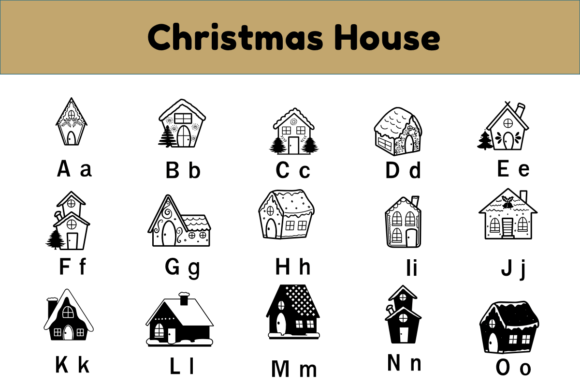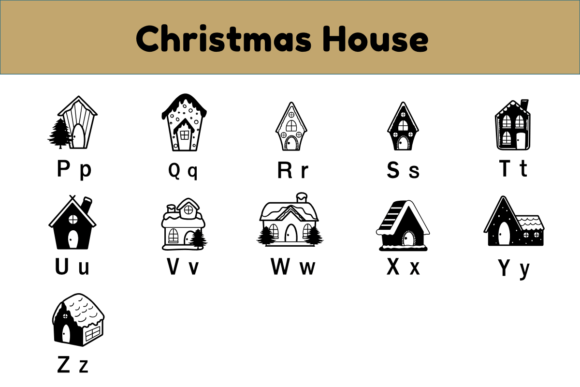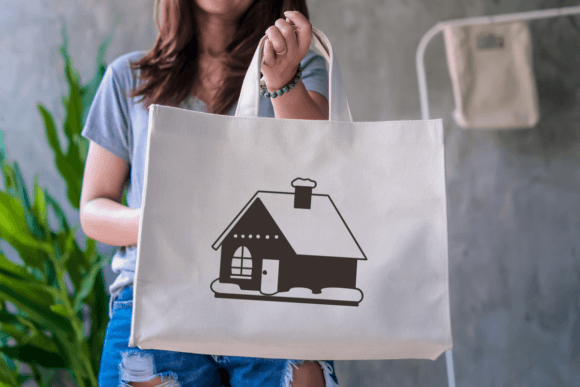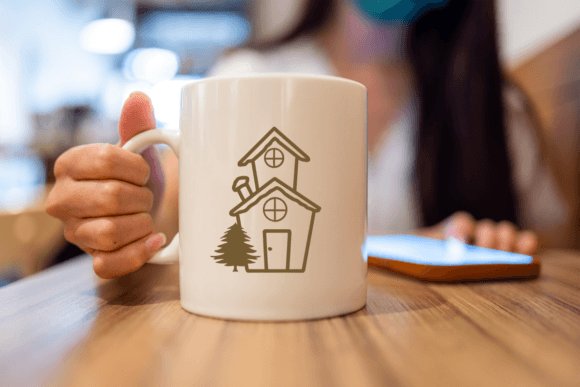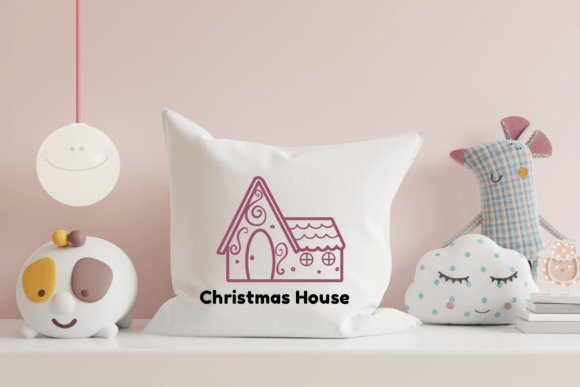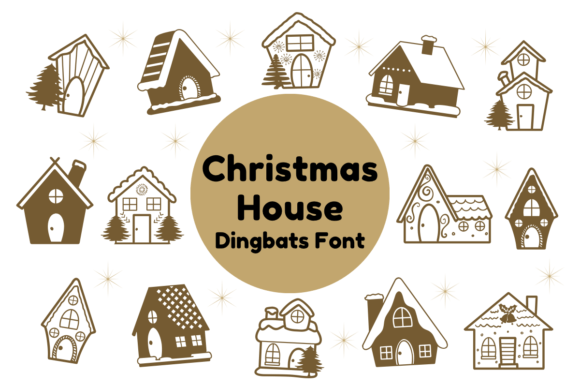
Introducing Christmas House Font: A Cute Dingbat Font for Your Holiday Projects
Are you looking for a font that captures the essence of Christmas and adds a touch of whimsy to your creative projects? Look no further than Christmas House Font, a delightful dingbat font that’s perfect for designers, crafters, and anyone looking to add some holiday cheer to their work.
What is Christmas House Font?
Christmas House Font is a unique and charming dingbat font that features a lovely Christmas theme. The font is designed to resemble a festive holiday house, complete with twinkling lights, wreaths, and other seasonal decorations. With its cute and playful design, Christmas House Font is sure to bring a smile to anyone’s face.
What Can I Use Christmas House Font For?
Christmas House Font is incredibly versatile and can be used for a wide range of creative projects. Here are just a few ideas to get you started:
- Wedding Invitations: Add a touch of holiday magic to your wedding invitations with Christmas House Font. You can use it to create custom monograms, decorations, and other design elements that will make your invitations stand out.
- DIY and Crafts: Christmas House Font is perfect for DIY projects and crafts, such as making holiday cards, gift tags, and decorations. You can use it to add a personal touch to your creations and make them more special.
- Decorations: Use Christmas House Font to create custom decorations for your home or office. You can make signs, banners, and other decorative items that will add a festive touch to your space.
- Logos and Branding: Christmas House Font can also be used to create custom logos and branding elements for your business. It’s a great way to add a touch of personality to your brand and make it more memorable.
Why Choose Christmas House Font?
There are many reasons why Christmas House Font is a great choice for your creative projects. Here are just a few:
- Unique and Eye-Catching: Christmas House Font is a one-of-a-kind font that’s sure to grab attention. Its unique design makes it stand out from other fonts, and it’s sure to add a touch of personality to your projects.
- Scalable: Christmas House Font is scalable, which means you can use it for a wide range of projects, from small crafts to large-scale designs.
Tips for Using Christmas House Font
Here are a few tips for using Christmas House Font in your creative projects:
- Experiment with Different Sizes: Christmas House Font looks great in a variety of sizes, so don’t be afraid to experiment and find the size that works best for your project.
- Combine with Other Fonts: Christmas House Font can be paired with other fonts to create a unique and interesting design. Try combining it with a bold font for a striking contrast.
- Use it for Headlines and Titles: Christmas House Font is perfect for headlines and titles, where its playful design can really shine.